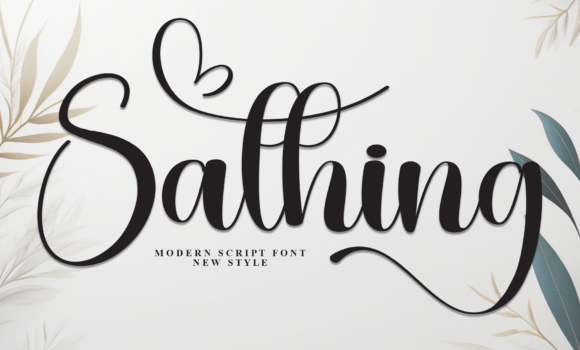
sathing
Sathing Font – Free Download Introduction to Sathing Font Sathing is a stylish handwritten script font exuding elegance and charm. 📸 Preview Gallery 6 images 📌 Product Name Sathing Font 👤 Author andikastudio 📂 Category Explore ⬇️ Download Sathing Font